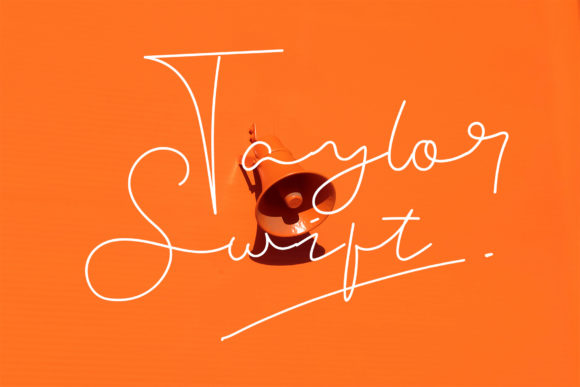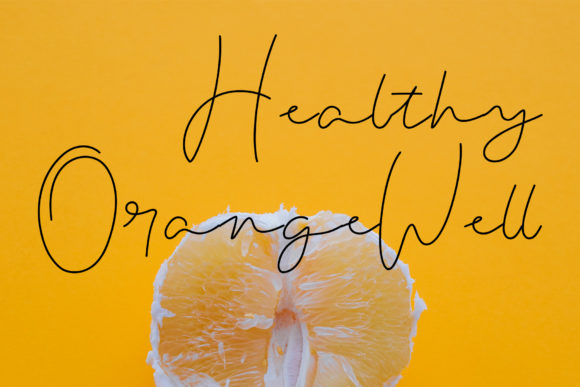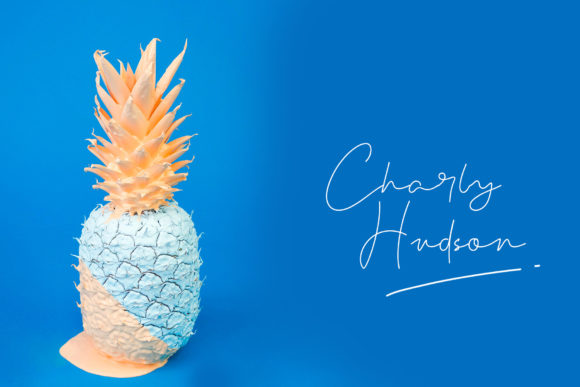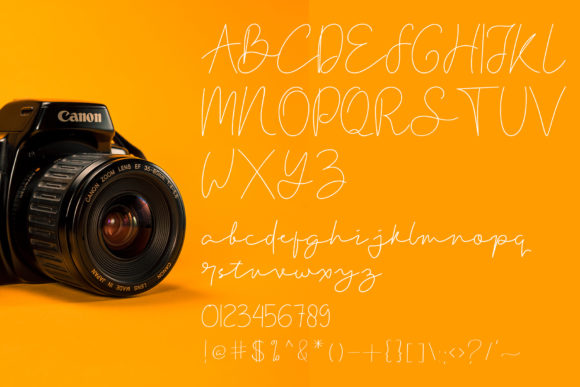
Introduction to Markwell Font
The Markwell is an amazing signature font.
This original handwritten script is perfect to add an authentic and elegant touch to your designs .
Markwell Font offers exceptional quality and versatility, making it a valuable addition to your design toolkit. Whether you’re creating for personal projects or commercial use, Markwell Font delivers professional results.